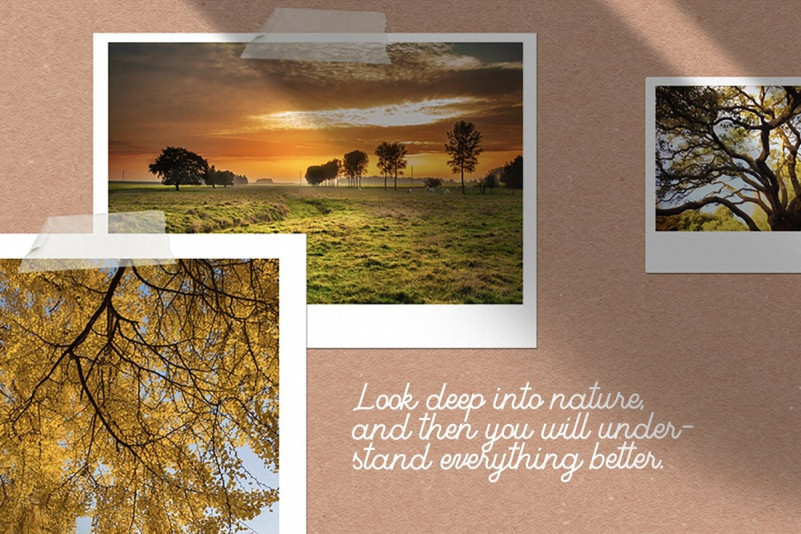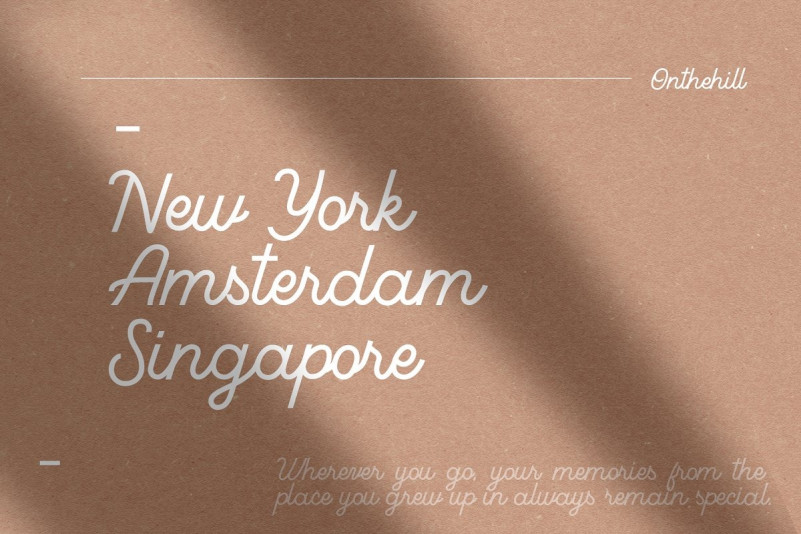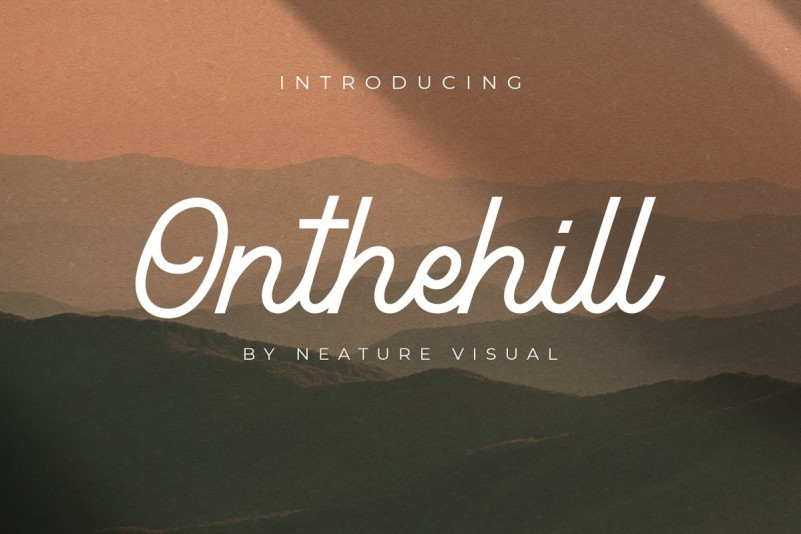
Onthehill Script Font
Onthehill is a monoline script font with clean natural style, this font is great for your next creative projects such as watermark on photography, quotes, album cover, logo, business card, and many other design project.
Onthehill comes with uppercase letters, lowercase letters, alternate lowercase letter, numbers and punctuation